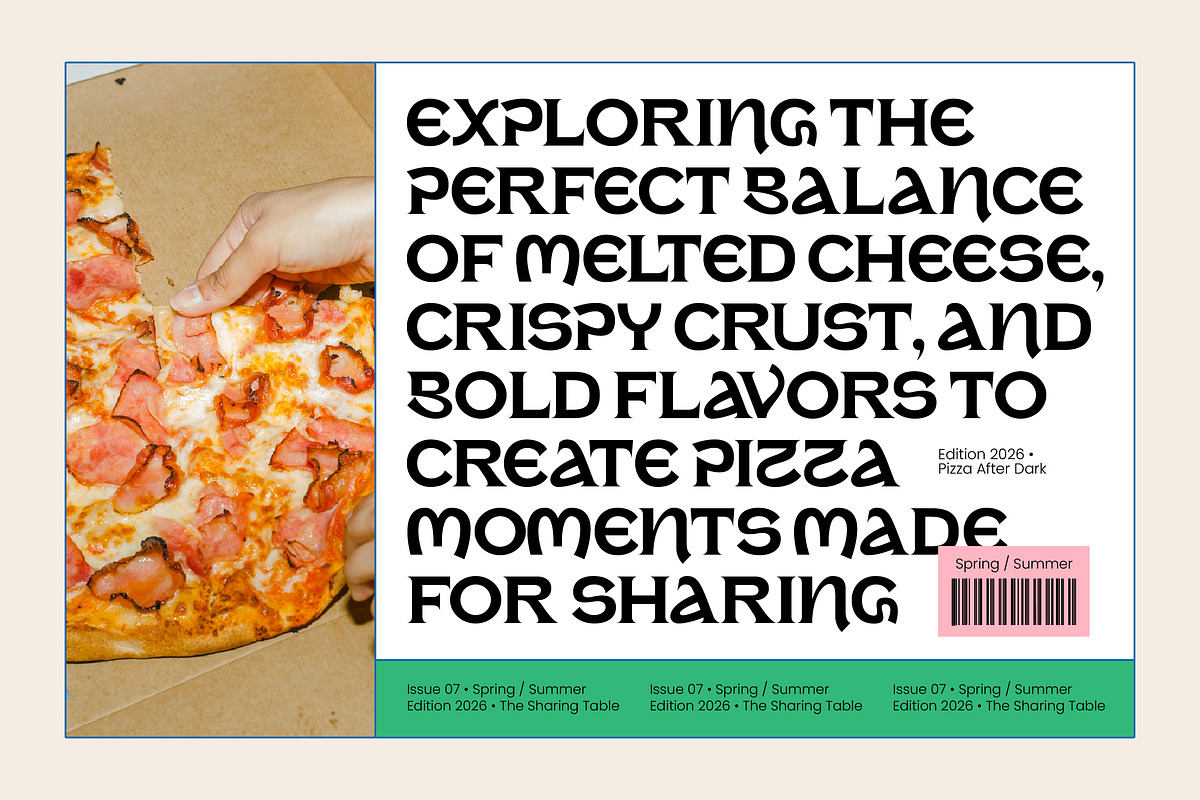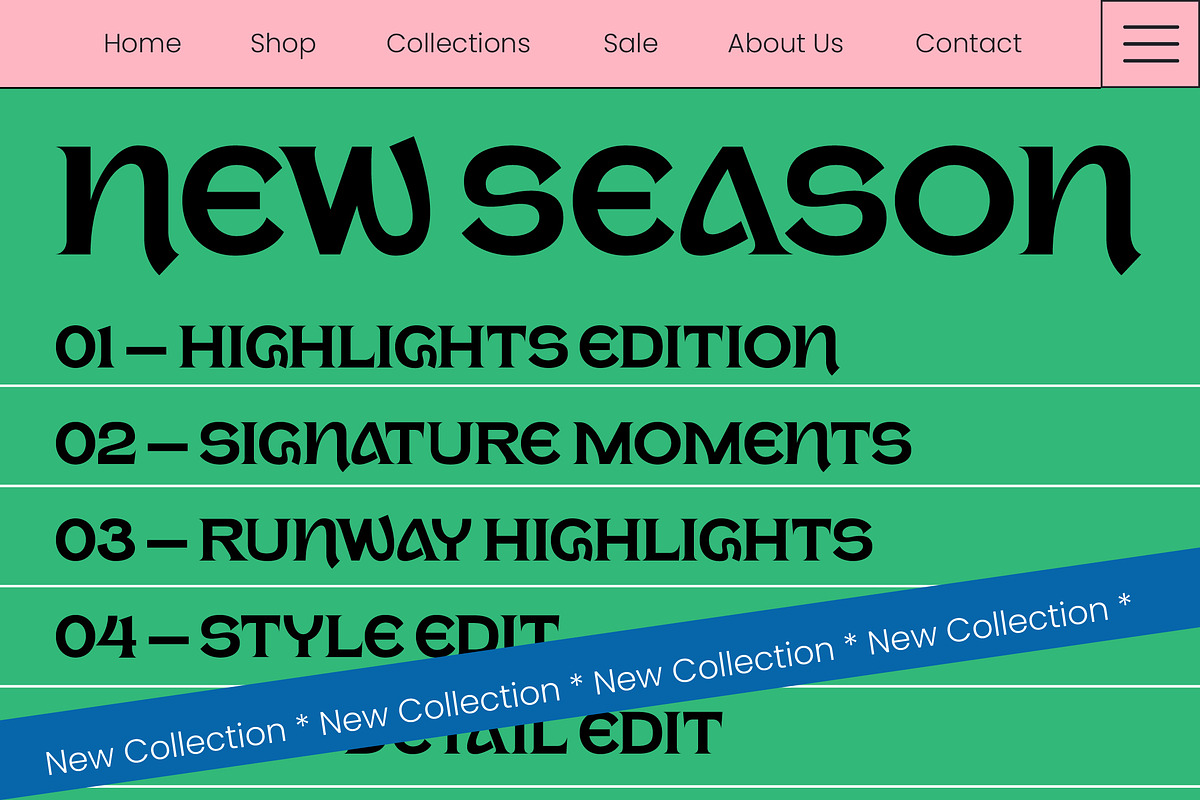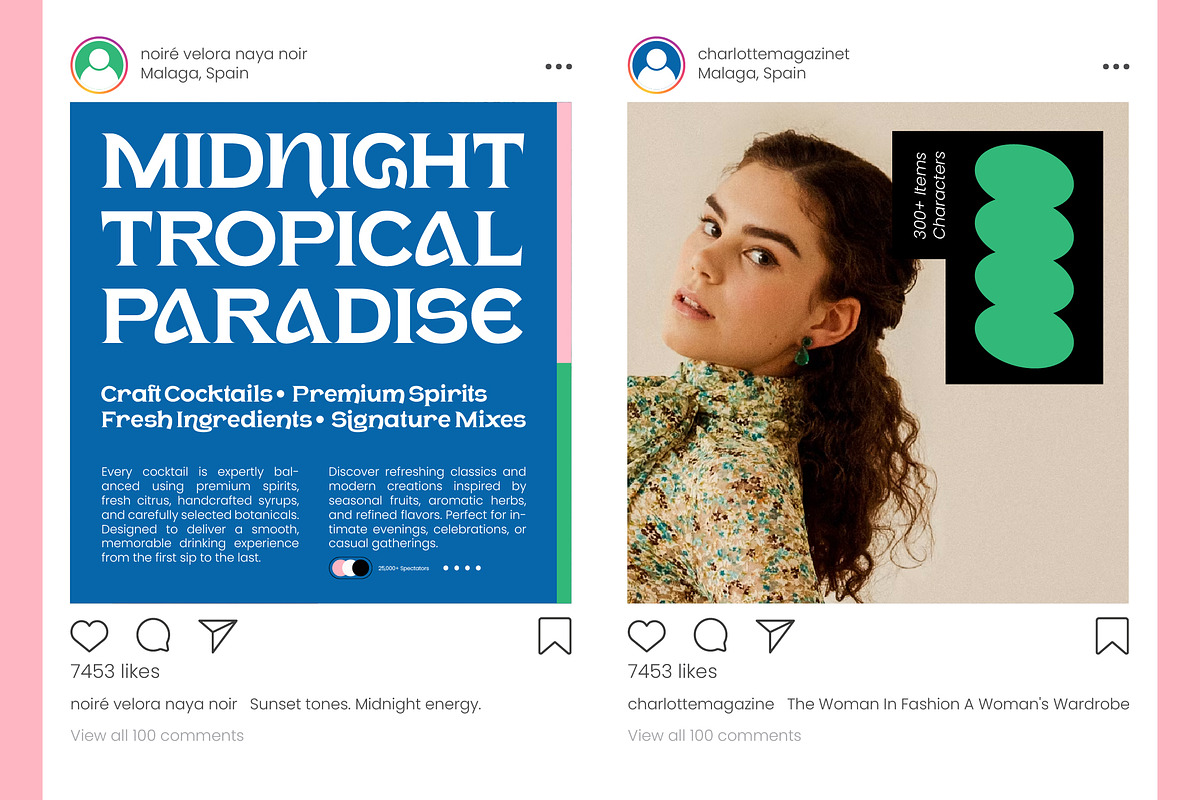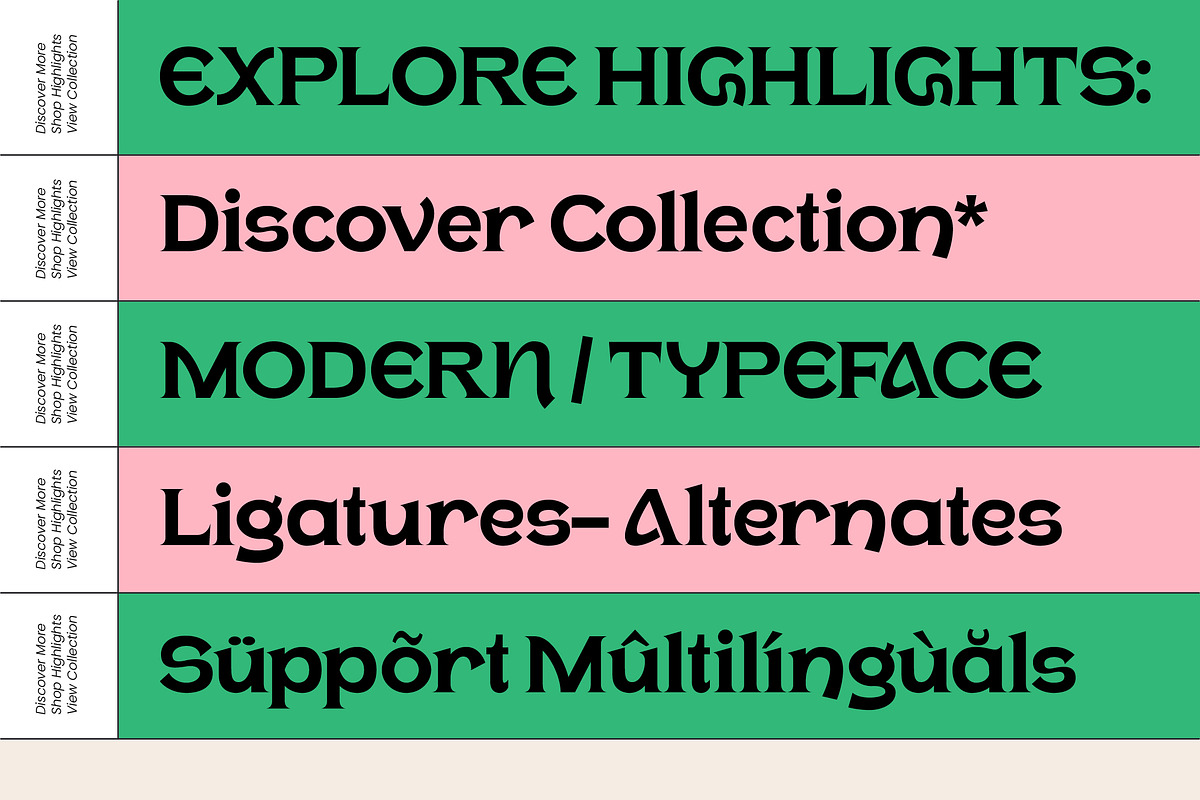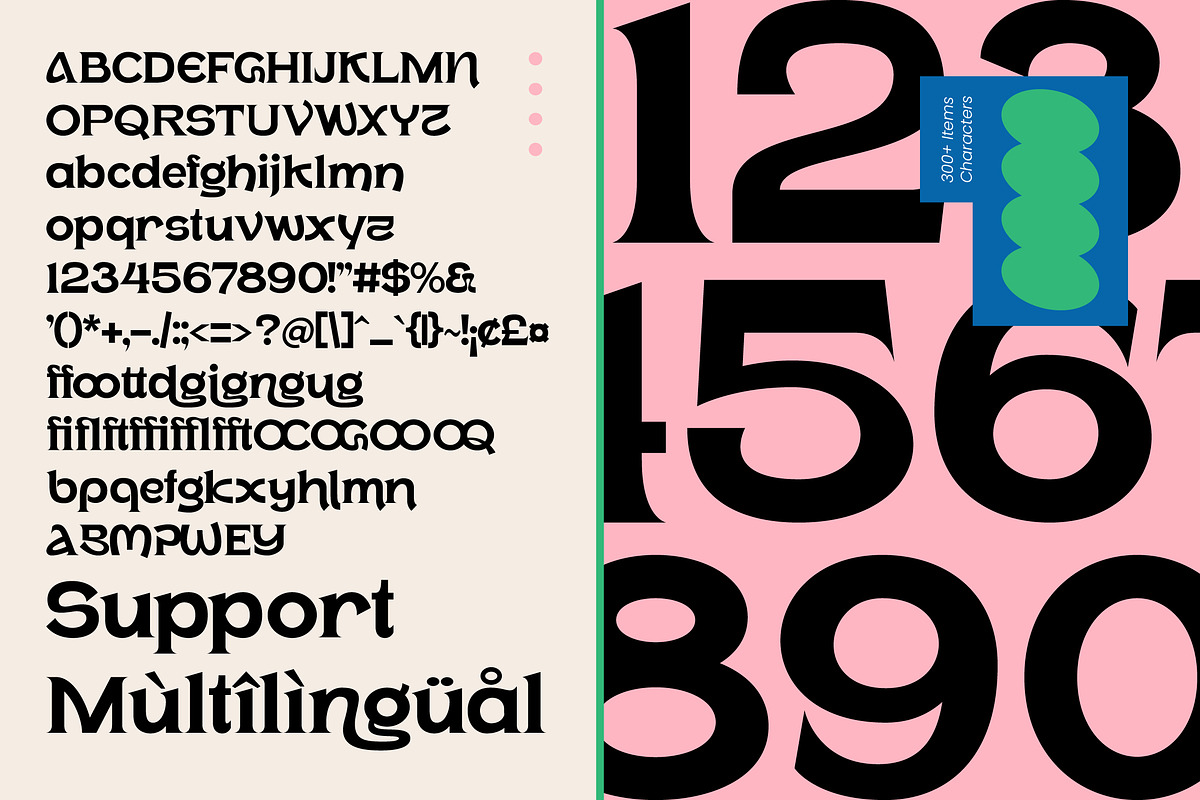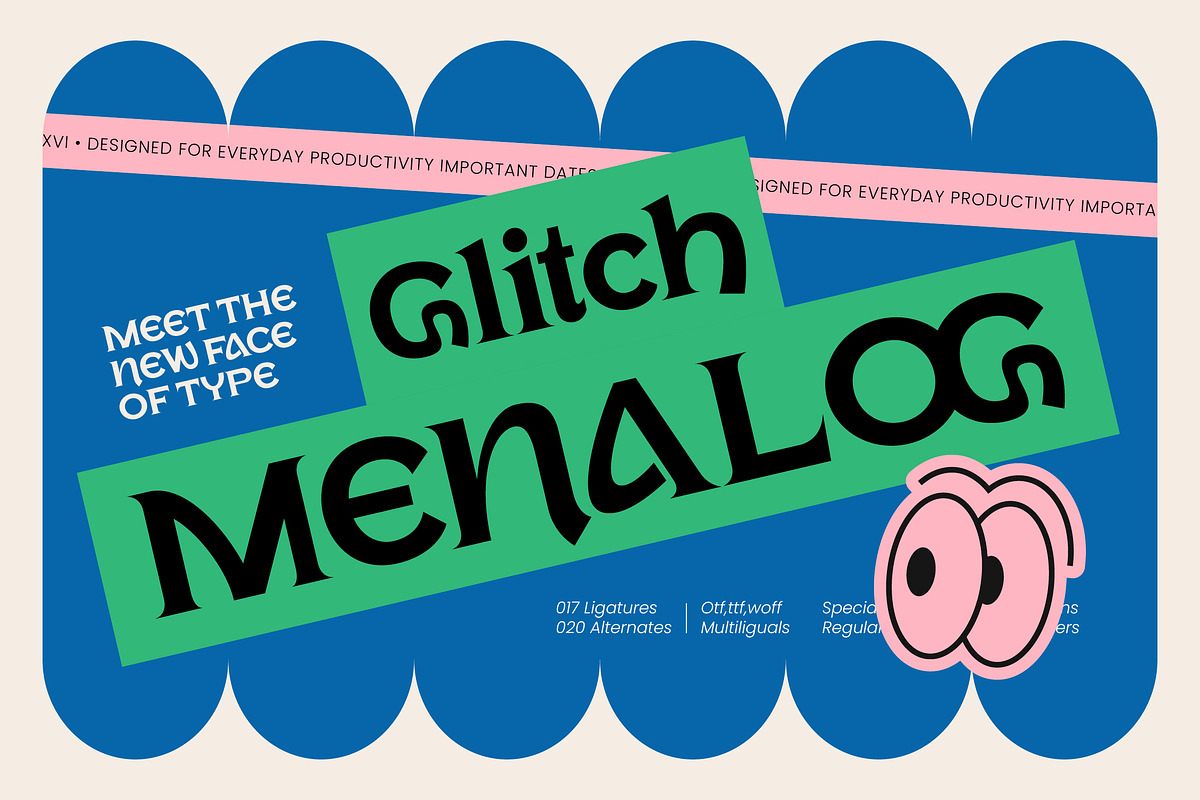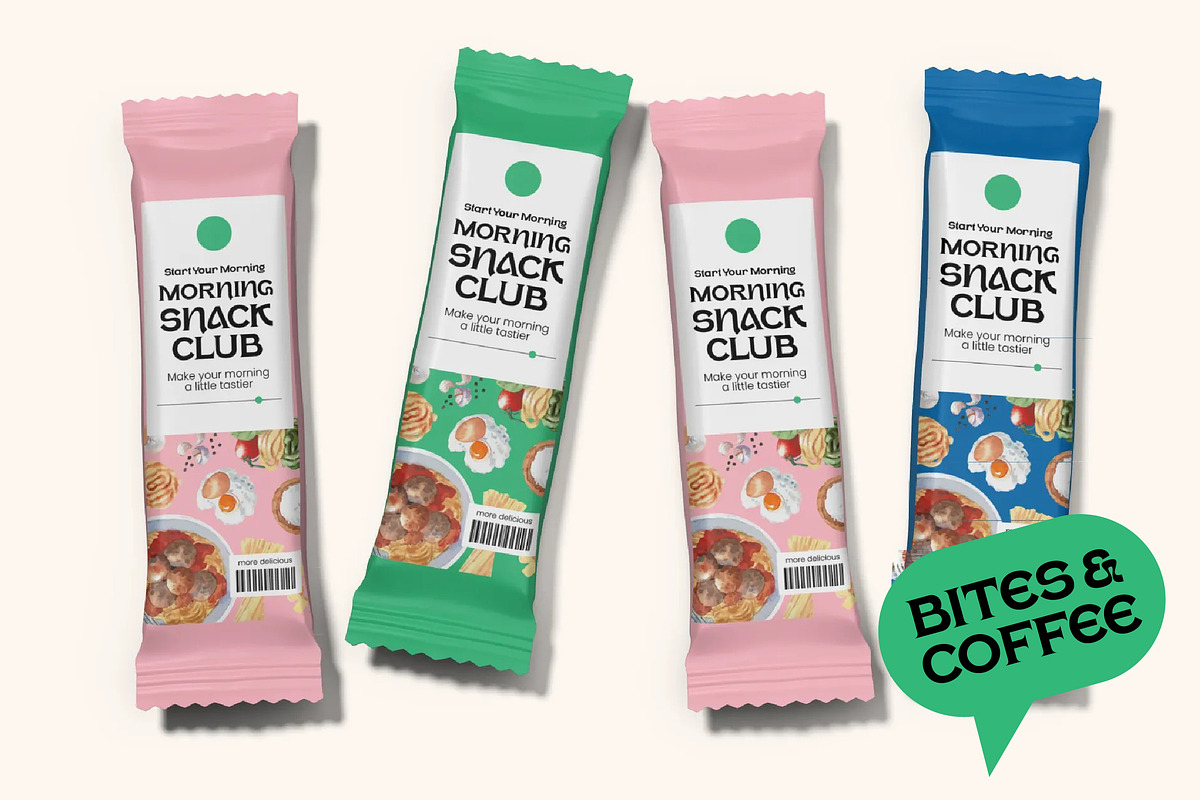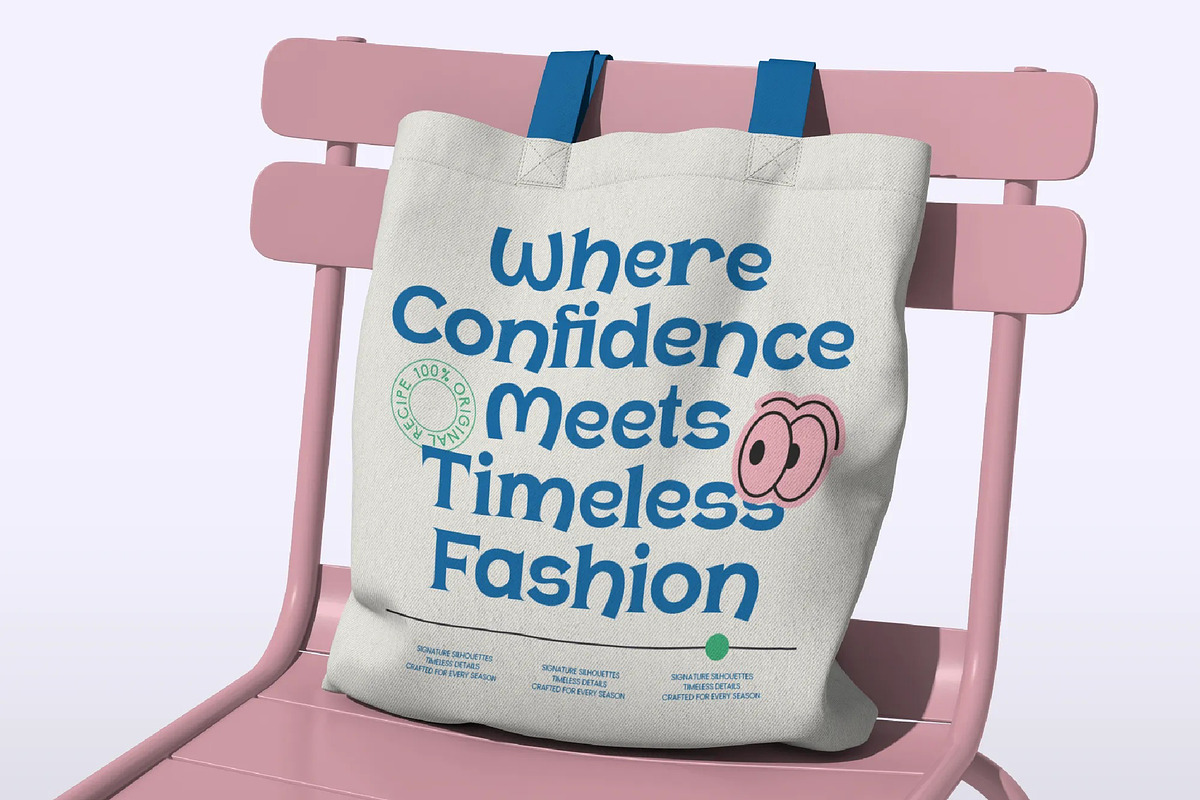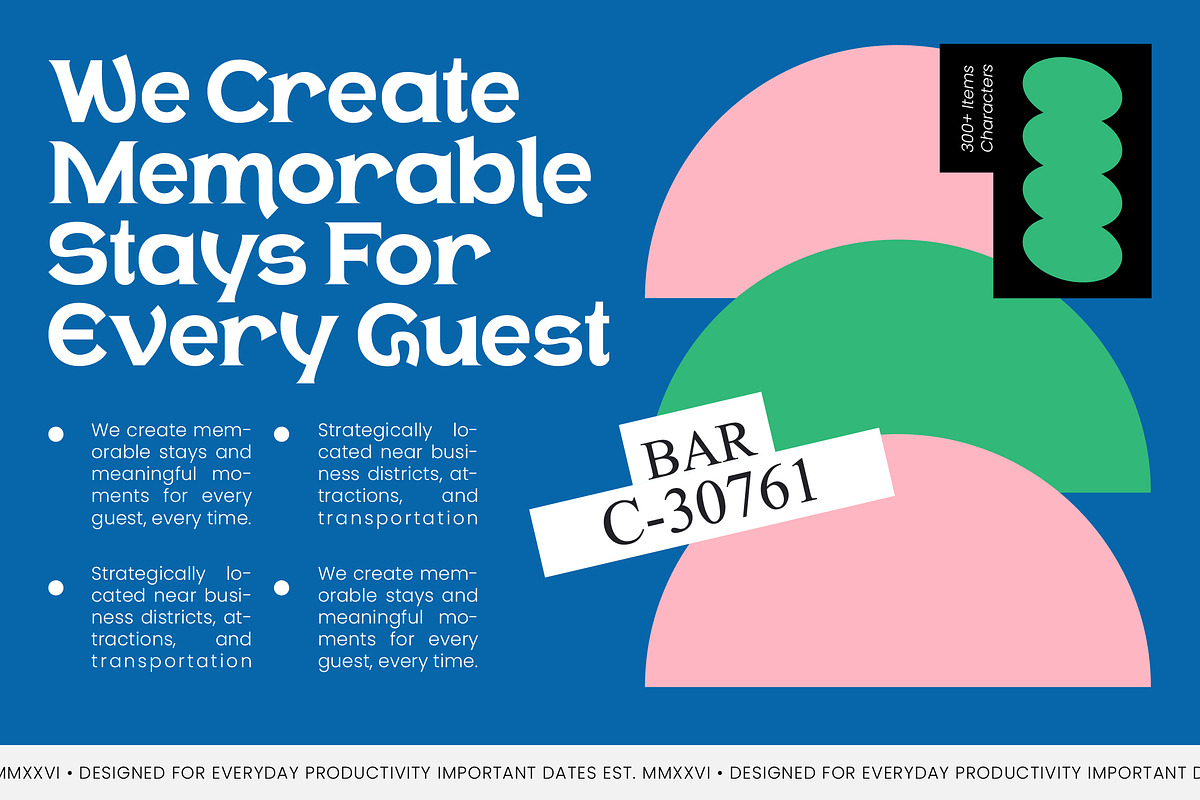
Glitch Menalog Display Serif
Glitch Menalog - Display Serif , Redefine the boundaries of modern typography with a striking and experimental edge. Glitch Menalog - Display Serif is a cutting-edge typeface that blends retro psychedelia with contemporary elegance. This high-contrast serif commands attention with its organic curves and bold silhouettes, offering a unique visual rhythm that is both experimental and sophisticated. It is the perfect choice for designers seeking a statement font that balances vintage charm with a modern edge.
Elevate your brand presence on a global scale with unmatched linguistic flexibility and technical precision. With its extensive multilingual support, Glitch Menalog - Display Serif adapts seamlessly across global markets, making it incredibly versatile for international projects. This comprehensive character set ensures that your message remains impactful regardless of the language, providing a consistent brand identity across borders. Whether you are targeting European or American markets, this versatile typeface maintains its distinctive aesthetic without compromise.
Transforming visual identities into iconic brand stories requires a unique and memorable typographic voice that resonates with audiences. This font is perfectly suited for luxury branding, high-end packaging, and editorial design. The striking personality of Glitch Menalog - Display Serif makes it ideal for bold headlines, fashion magazine layouts, and sophisticated logo design. It excels in environments where visual impact is paramount, such as social media graphics, poster art, and premium product labels.
Unlock unparalleled creative freedom with advanced typographic features that streamline your creative workflow and enhance your professional output. Equipped with stylistic alternates and unique ligatures, Glitch Menalog - Display Serif offers endless possibilities for customized typography. Each character is meticulously crafted to ensure optical balance and readability, even at large display sizes. By integrating this premium display font into your design toolkit, you gain access to a high-performance asset that guarantees a polished and professional finish.